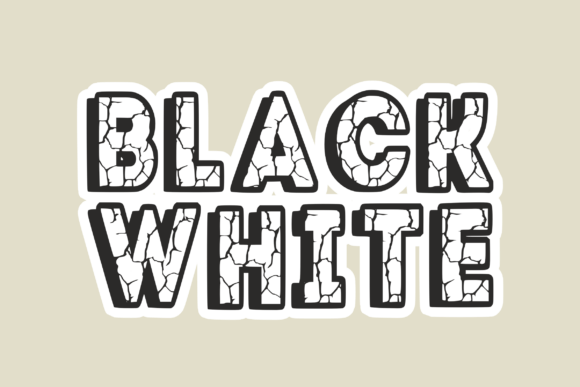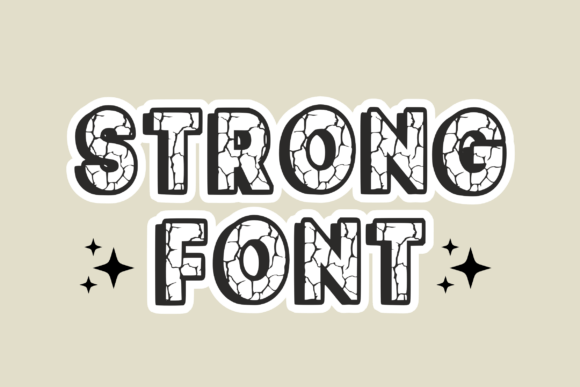
Introduction to Rock Crack Font
The moment of creative triumph – you’ve finally nailed that design concept, and it’s all thanks to the perfect font. For designers, the right font can make all the difference in bringing a project to life. And when it comes to adding a unique touch, a font with character can be just what you need. That’s where the Rock Crack Font comes in – a cracked rock font that’s as eye-catching as it is versatile.
With its cool crack texture, each character in the Rock Crack Font is a design delight. Whether you’re working on a sublimation project, creating animations, or designing comic titles, this font is sure to add a touch of creativity to your work. Plus, its high-quality design and transparent background make it easy to integrate into any project. And the best part? It’s available for free download, making it a valuable resource for designers on a budget.
Key Features of Rock Crack Font
- High-quality font design for creative projects, ideal for graphic designers and artists.
- Features a unique, bold, and edgy style, perfect for adding a rock-inspired touch to your design project.
Honest Review: Rock Crack Font
I recently came across the Rock Crack Font and decided to give it a try for my current creative project. Overall, I’m quite pleased with the results. This font is perfect for adding a rugged touch to my design. I downloaded it for free, which is a great bonus, making it an excellent design resource.
What works well with the Rock Crack Font is its high-quality design and versatile usage. It’s available in various formats, including a transparent background, which makes it easy to integrate into my design. The font’s unique style adds a lot of character to my project, and I appreciate the level of detail that went into its creation.
- ✨ Unique and high-quality design
- ✨ Versatile usage in various creative projects
- ✨ Available in multiple formats, including transparent background
One limitation I’ve noticed is that the font may not be suitable for all types of designs. For example, it might be too bold or overwhelming for more minimalist projects. However, for creative projects that require a lot of texture and character, the Rock Crack Font is an excellent choice.
Overall, I’m happy with my experience using the Rock Crack Font. It’s a great addition to my design resources, and I would recommend it to anyone looking for a high-quality font with a unique style.
Tips for Getting the Most Out of Rock Crack Font
To get the most out of Rock Crack Font, use it in combination with other design elements to create a visually appealing design. Experiment with different font sizes, colors, and styles to find the perfect combination for your creative project. You can also use the font as a design resource for other projects by saving it as a free download and uploading it to your design software.
Rock Crack Font is a versatile font that can be used in a variety of creative projects, including logos, business cards, and social media graphics. It’s also great for designing high-quality prints, such as posters and flyers. With its high-quality design and transparent background, Rock Crack Font is the perfect design resource for any creative project.